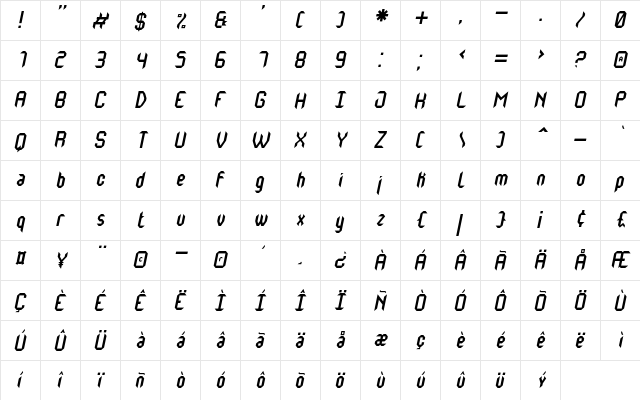
Monster oF South St Italic
Design Context for Monster oF South St Typeface
Monster oF South St offers clean, dependable letterforms without strong stylistic allegiance, making it a practical choice for designers who need flexibility. The dynamic lean of this cut emphasises speed and emphasis in any layout.
Pro Tip: Use Monster oF South St for emphasis, pull quotes, and subheadings where its slanted energy can add rhythm to the layout.